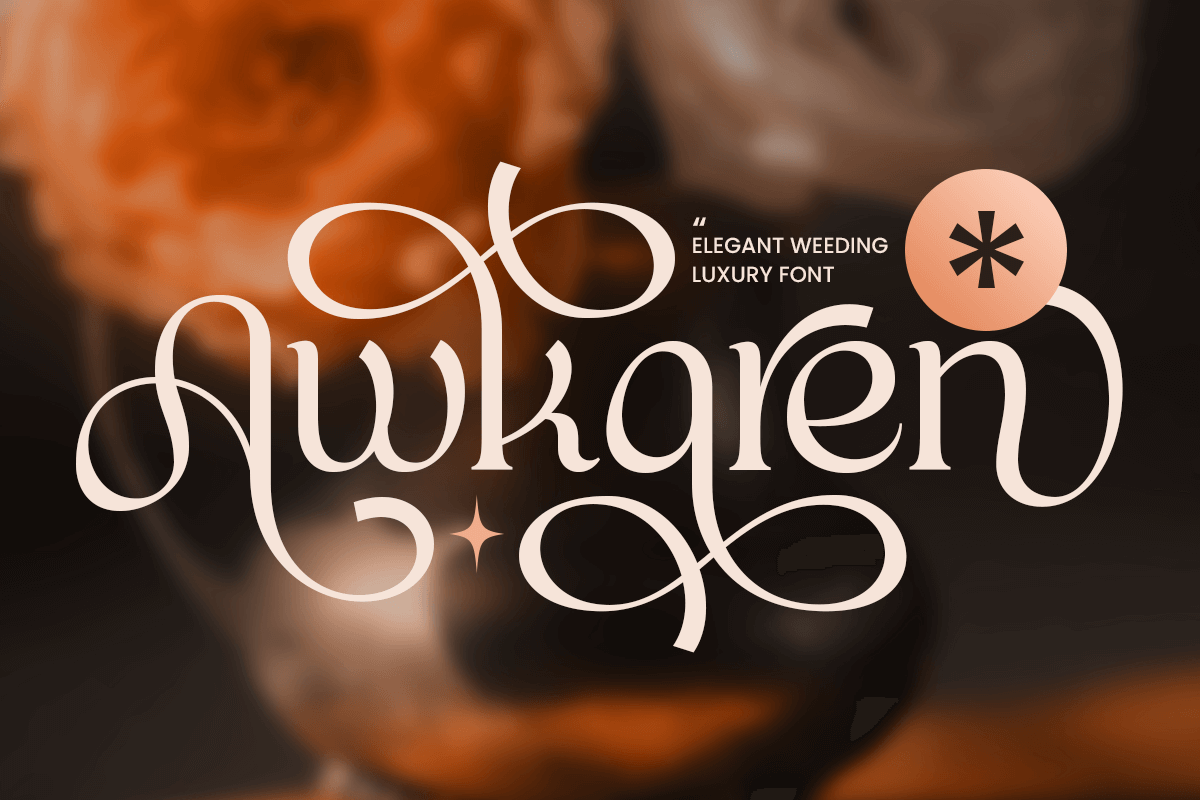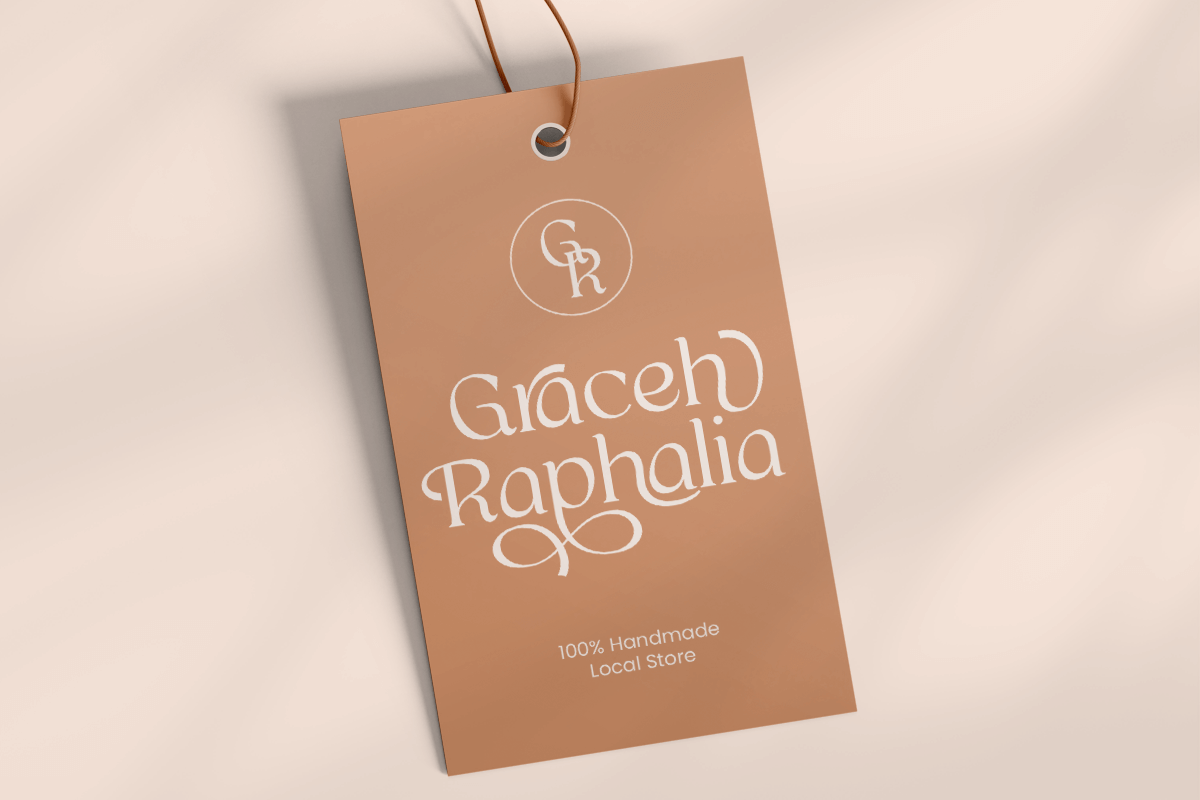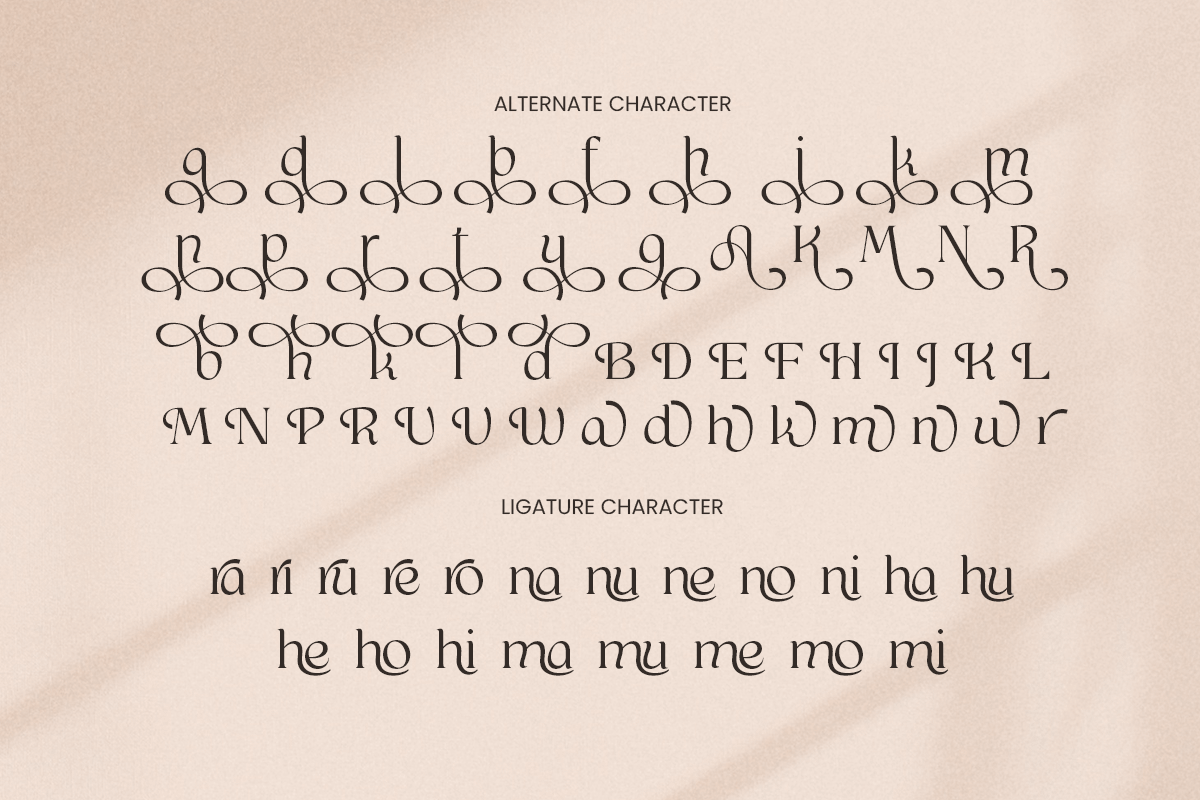
Awkaren – Fashion Brand Font
Awkaren – Fashion Brand Font is a versatile typeface ideal for various projects, including logos, branding, posters, blog headers, advertisements. The free version includes a full set of uppercase and lowercase letters, available in OTF format.